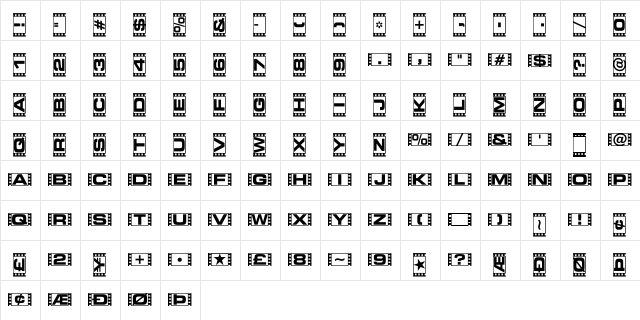
Vedette Blanche
Design Context for Vedette Typeface
Vedette is a composed and adaptable typeface that performs quietly and consistently across a wide range of design contexts.